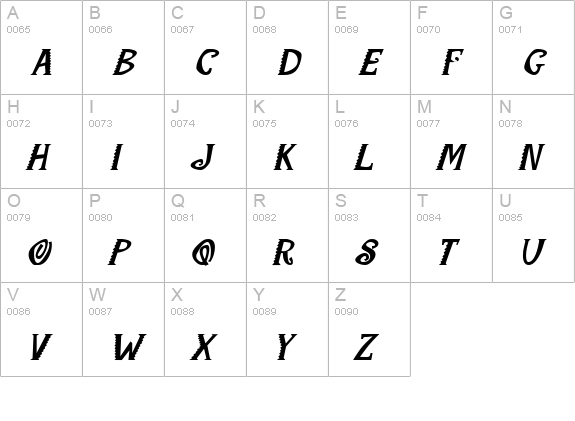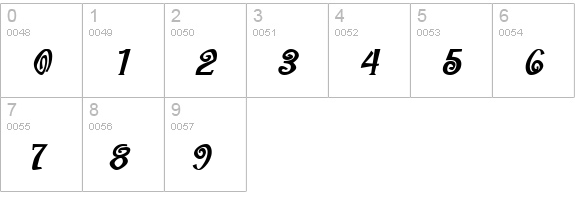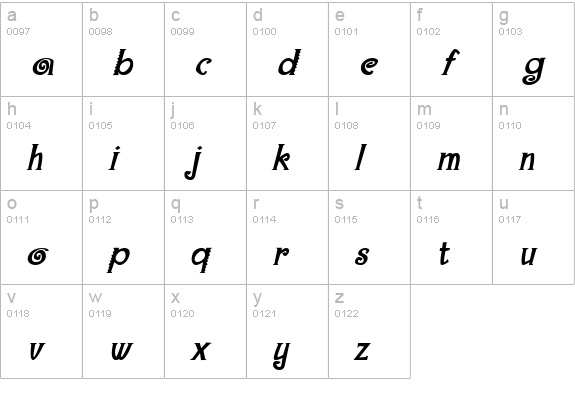
Maraca Extrabold Italic Font Details
Maraca Extrabold Italic is an extra-heavy, attention-grabbing, italic variant in the Maraca typeface family \xE2\x80\x94 well suited to high-impact headlines, posters, and bold branding.
Maraca Extrabold Italic font is a stunning display typeface that exudes confidence and power. Its bold and italicized design adds a touch of elegance and modernity, making it perfect for headlines, posters, and other attention-grabbing designs. With its strong and distinct letterforms, Maraca Extrabold Italic font commands attention and demands to be noticed. Each letter is meticulously crafted to create a harmonious balance between thick and thin strokes, resulting in a visually striking display. This font is not only visually appealing but also highly versatile. It can be used for a wide range of design projects, from branding and advertising to editorial and web design. Its impact is undeniable and it effortlessly adds a touch of sophistication to any project it is used in. One of the best things about Maraca Extrabold Italic font is that it is freely available to download at FontsMarket.com. This means that designers and creatives can access this exceptional font without any cost, allowing them to elevate their designs without breaking the bank. Whether you're a professional designer or an enthusiast, Maraca Extrabold Italic font offers a unique and captivating typographic solution. Its striking appearance and freely accessible availability make it a must-have for anyone looking to make a bold statement with their designs.